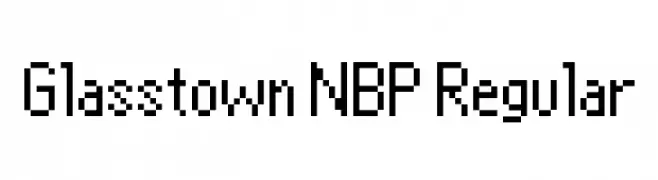
A bold, pixelated font with a retro digital aesthetic.
A pixelated, bold font with a retro digital aesthetic.
A bold, pixelated font with a retro digital aesthetic.